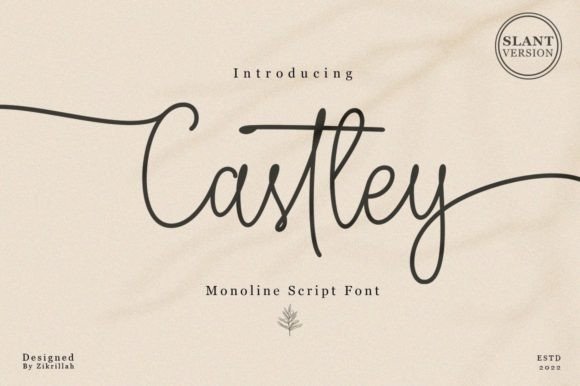
Love is in the Script
Have you ever been scrolling through your social media feed and stumbled upon a beautifully designed post that just makes your heart skip a beat? For designers, that moment is what drives us to create something truly special. It’s the spark that ignites the passion to craft a unique visual identity that leaves a lasting impression. And that’s exactly what we’re excited to share with you – a font that embodies the essence of love and romance.
Meet Castley Font, a stunning monoline calligraphy script designed to add a touch of elegance to your designs. Whether it’s a couple’s name, a wedding invitation, or a custom logo, Castley Font is the perfect companion to help you create something truly unforgettable. As a designer, you’ll appreciate the versatility and beauty of this font, which makes it a valuable addition to your design toolkit.
Castley Font Key Features
- Unique Characteristics: Castley Font features a unique blend of modern and traditional elements, with a distinctive script style and elegant flair.
- Kerning and Ligatures: Castley Font includes advanced kerning and ligature features, ensuring smooth text rendering and a professional look.
Castley Font Review
Overall, I’m quite impressed with the Castley Font. Here are some of its standout features: ✨
- Unique style: Castley Font offers a quirky and whimsical feel that’s perfect for creative projects.
- Good legibility: The font is clear and easy to read, even at smaller sizes.
- Wide range of weights: The font comes in several weights, from light to bold, giving designers a lot of flexibility.
However, there are some limitations to keep in mind: ⚠️
- Limited language support: Castley Font may not be suitable for projects that require extensive language support.
- No italic or oblique styles: If you need italic or oblique text, you’ll need to use a separate font or adjust the text manually.
- May not be suitable for body text: While the font is great for headings and titles, it may not be the best choice for large blocks of body text.
Overall, I think Castley Font is a great choice for designers looking for a unique and eye-catching font. With its wide range of weights and good legibility, it’s a versatile option that can add some personality to your projects. Just be aware of its limitations, and you’ll be all set.
Castley Font is a versatile font suitable for various design projects, including:
- Social media graphics and posts
For optimal results, use Castley Font with a mix of bold and italic styles to create visual interest and emphasis.
Alternatives to Castley Font for Designers
Bodoni is a classic serif font that is ideal for use in magazines, newspapers, and other publications where a formal, elegant look is desired. It features a distinctive x-height and a classic serif design that makes it easy to read. Compared to Castley Font, Bodoni has a more traditional and formal look, making it a better choice for formal documents and publications.
Playfair Display is an elegant and luxurious serif font that is perfect for use in high-end branding, advertising, and packaging. It features a unique combination of serif and sans-serif elements that give it a sophisticated and eye-catching look. Compared to Castley Font, Playfair Display is more elaborate and ornate, making it a better choice for luxury brands and high-end designs.
The recommended font size for optimal readability with Castley Font is between 12pt and 24pt. This range provides clear and legible text while maintaining the font’s aesthetic appeal.